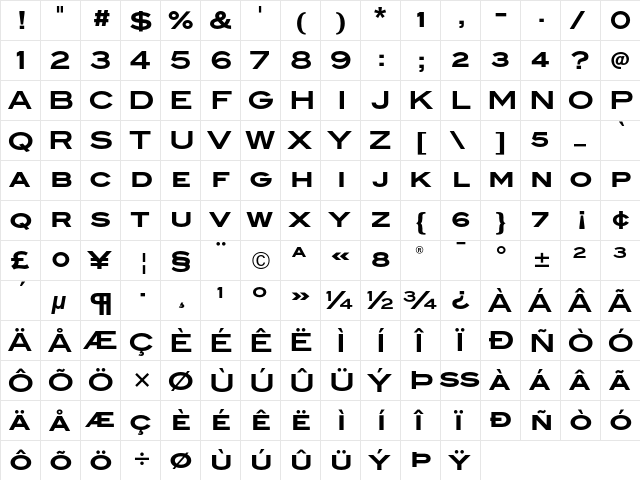
Blair ITC Bold
Design Context for Blair ITC Typeface
Blair ITC takes a measured approach to typography — its balanced proportions and neutral character make it a reliable workhorse for both digital and print work. Its bold stroke weight gives it real presence on the page.